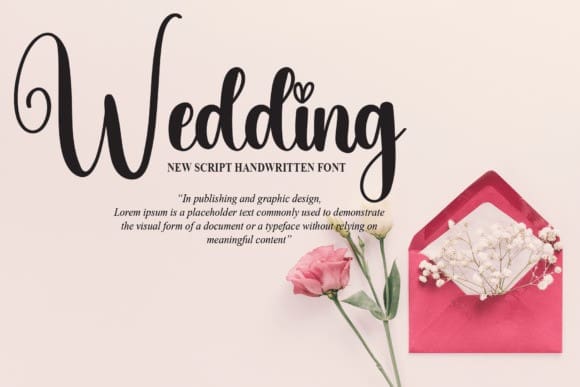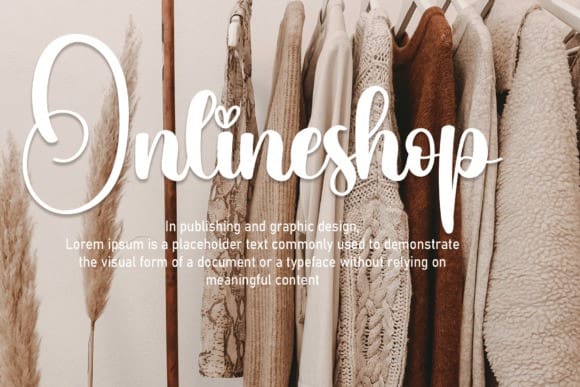
Drip Script Font
Drip Script Font, is a cool and casual handwritten font. Whether you’re using it for crafts, digital design, presentations, or making greeting cards, this font has the potential to become your favorite go-to font, no matter the occasion.